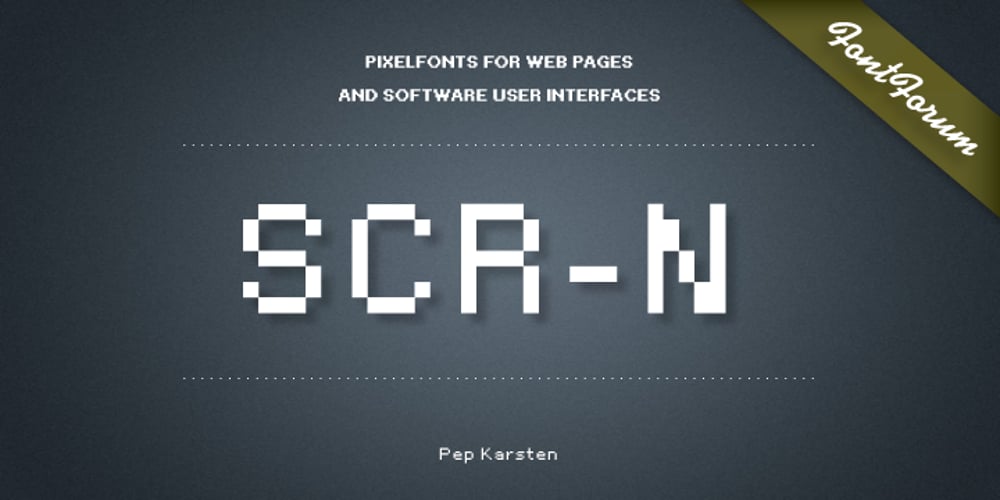
SCR-N Font Family was designed by Pep Karsten and published by URW Type Foundry. SCR-N contains 17 styles and family package options. SCR fonts are screen optimized (also called ‘pixel fonts’). Unlike standard fonts (and like the few well-hinted fonts like Verdana or Arial), they give a crisp look on screen at very small sizes, thus increasing legibility. The perfect applications for those fonts are web pages and software user interfaces (computer, cellular phones, console games and any other system that uses a screen interface). Unlike most pixel fonts, SCR fonts contain kerning information. Kerning is the adjustment of space between certain pairs of characters (like ‘AV’) to make text look more fluid, thus increasing legibility and appeal. To benefit from this feature, auto-kerning must be activated in the application. In Photoshop, kerning must be set to ‘Metrics’. Although SCR fonts are optimized for screen, they can be used for print (in Illustrator or Indesign for example) for a decorative ‘computer text’ effect. In this case, there is no constraint: they can be used as any other font. For screen use (in Photoshop, Fireworks, Flash… ), they have to keep aligned with the screen pixel grid not to look blurred or distorted. To achieve this, here are the guidelines to follow: RESOLUTION If the application permits it (Photoshop, Fireworks), document resolution must be set to 72 pixels per inch. SIZE The font size must be set to 10 (or multiples of 10) points. POSITIONING & ALIGNMENT The reference points of text fields and text blocks (upper left corner for left aligned text, upper right for right aligned text) must be positioned at integer values of pixels. In Photoshop, text can be precisely moved with [Edit Free Transform]. In Flash, movie clips containing text fields must also be positioned at integer values on the stage. Text must be aligned to the left or right only. Center alignment can be simulated with left alignment by adding spaces at the begin of each line. To dispense with the positioning and alignment constraints, text anti-aliasing can be turned off if the application permits it (Photoshop, Flash MX 2004). OTHER SETTINGS Leading (line spacing), tracking (letter spacing), manual kerning and baseline shift must be set either to integer values of points or to multiples of 100 units (depending on the application). Vertical and horizontal scaling must be set to 100%. Faux bold or Faux italic must not be used. The document must neither be resized on export, nor allow resizing (Flash Movies).